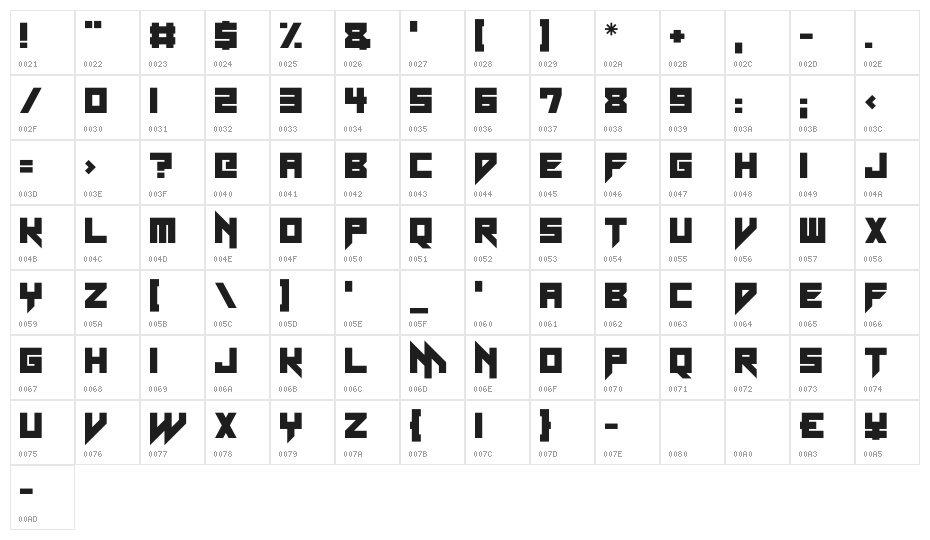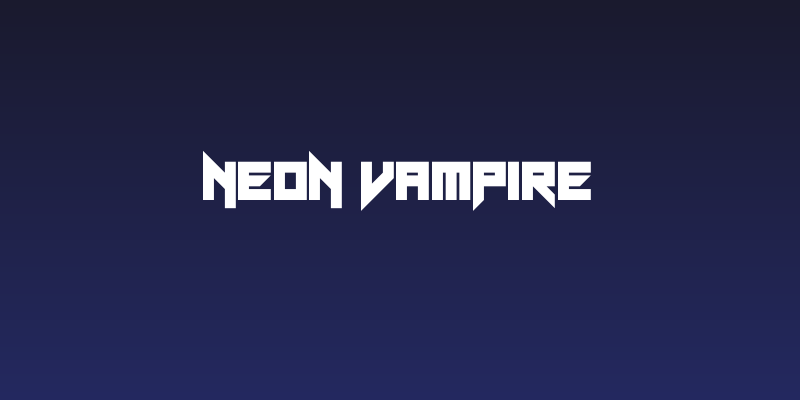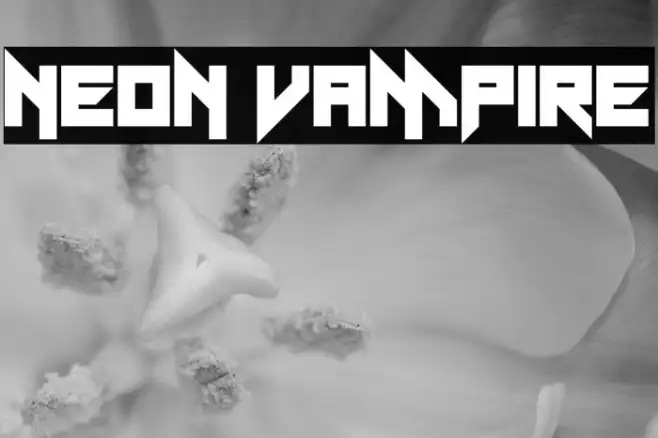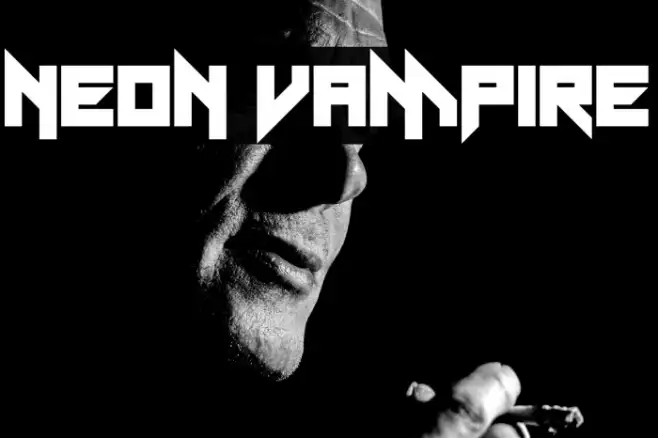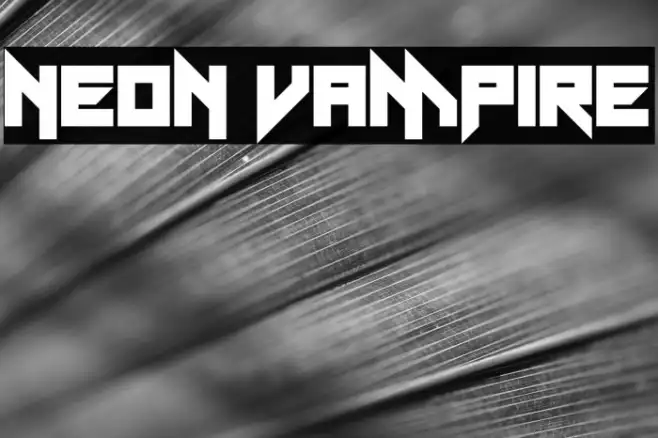
Neon Vampire Font
Neon Vampire Description
This font features a bold and striking design with sharp, angular edges that give it a futuristic and edgy appearance. The characters are highly stylized, with a geometric structure that emphasizes strong vertical and horizontal lines. The uppercase and lowercase letters maintain a consistent style, creating a cohesive look. The numbers and special characters follow the same design principles, ensuring uniformity across all glyphs. This font is ideal for projects that require a modern and impactful visual presence.
| Proposed Projects | Ideal for sci-fi movie posters, video game titles, and edgy branding projects. |